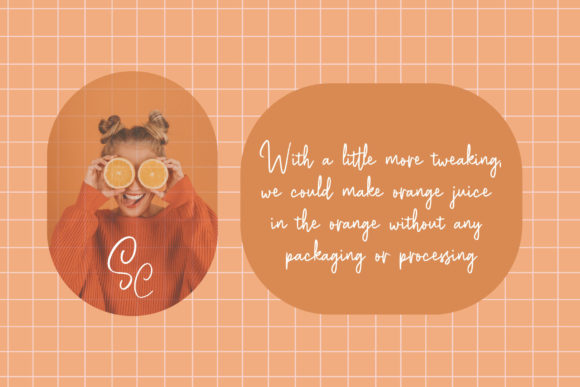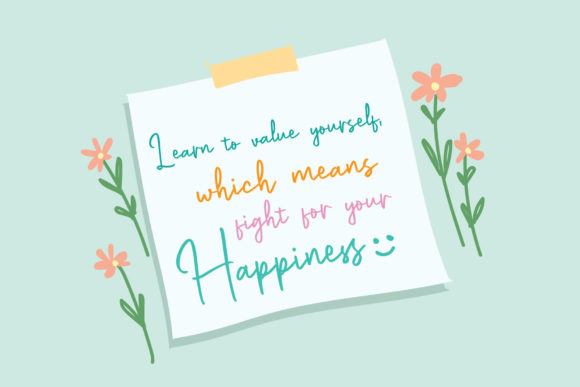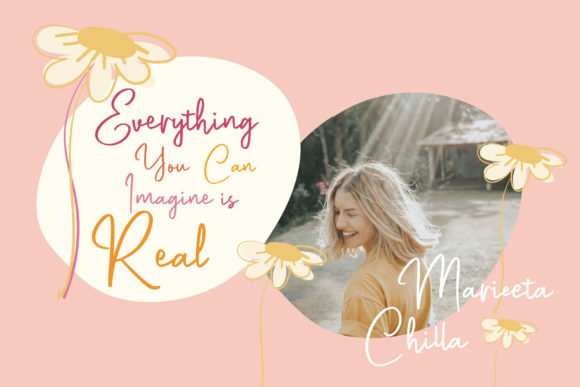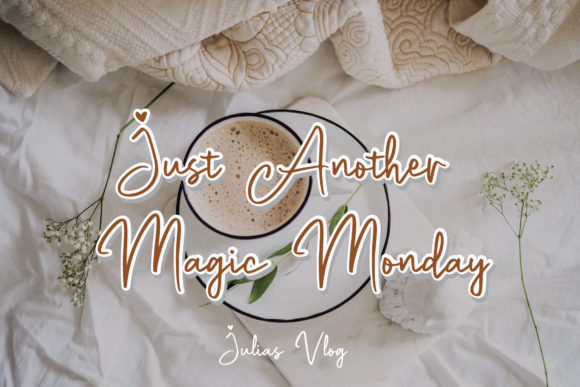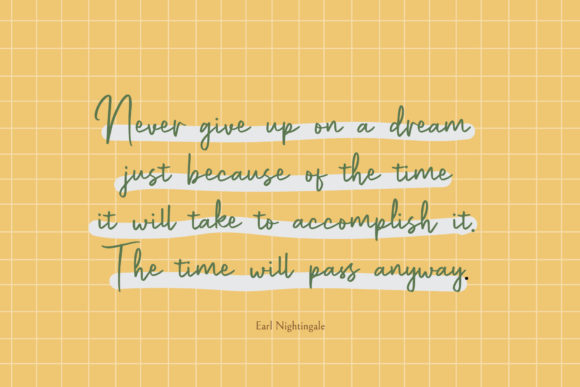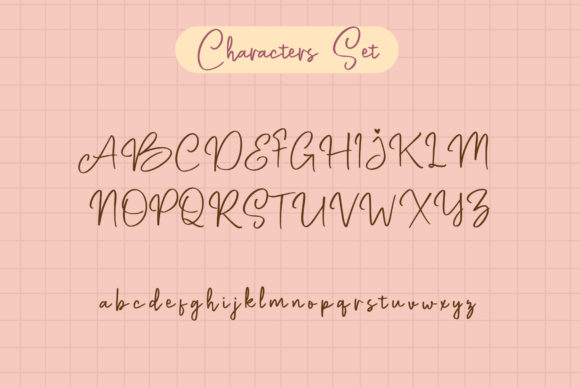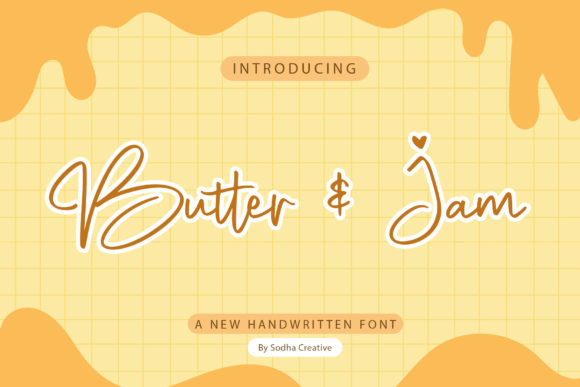
Introducing Butter & Jam Font: The Sweetest Addition to Your Design Collection
Are you looking for a font that can add a touch of sweetness and romance to your design projects? Look no further than the Butter & Jam Font! This beautiful, cursive handwritten font is perfect for designers and crafters who want to add a personal and whimsical touch to their work.
What is Butter & Jam Font?
Butter & Jam Font is a sweet and cursive handwritten font that is designed to bring a sense of joy and romance to your design projects. With its gentle and flowing curves, this font is perfect for creating beautiful and eye-catching designs that will capture the attention of your audience.
Features of Butter & Jam Font
So, what makes Butter & Jam Font so special? Here are just a few of its key features:
- Sweet and Cursive Design: The Butter & Jam Font has a beautiful, cursive design that is perfect for creating romantic and whimsical designs.
- Handwritten Style: This font has a handwritten style that gives it a personal and unique touch.
- Versatile: The Butter & Jam Font is versatile and can be used on a variety of design projects, from wedding invitations to branding and packaging.
- Easy to Read: Despite its cursive design, the Butter & Jam Font is easy to read, making it perfect for body text and headings.
Uses for Butter & Jam Font
The Butter & Jam Font is perfect for a wide range of design projects, including:
- Wedding Invitations: Add a touch of romance and whimsy to your wedding invitations with the Butter & Jam Font.
- Branding and Packaging: Use the Butter & Jam Font to create beautiful and eye-catching branding and packaging designs.
- Social Media Graphics: Add a personal touch to your social media graphics with the Butter & Jam Font.
- Stationery and Cards: Use the Butter & Jam Font to create beautiful and unique stationery and cards.
Why Choose Butter & Jam Font?
So, why should you choose the Butter & Jam Font for your design projects? Here are just a few reasons:
- Unique and Personal: The Butter & Jam Font has a unique and personal touch that will set your designs apart from the rest.
- High-Quality: The Butter & Jam Font is a high-quality font that is designed to produce beautiful and clear results.
Tips for Using Butter & Jam Font
Here are a few tips for using the Butter & Jam Font in your design projects:
- Use it for Headings and Titles: The Butter & Jam Font is perfect for headings and titles, where its cursive design can really shine.
- Pair it with Other Fonts: Try pairing the Butter & Jam Font with other fonts to create a unique and interesting design.
- Experiment with Colors: The Butter & Jam Font looks beautiful in a range of colors, so don’t be afraid to experiment and find the perfect shade for your design.
The Butter & Jam Font is a beautiful and versatile font that is perfect for designers and crafters who want to add a touch of sweetness and romance to their design projects. With its cursive design, handwritten style, and easy-to-read format, this font is sure to become a favorite in your design collection. So why wait? Download the Butter & Jam Font today and start creating beautiful and eye-catching designs!